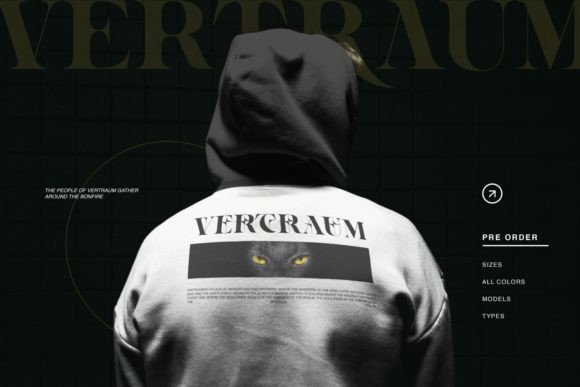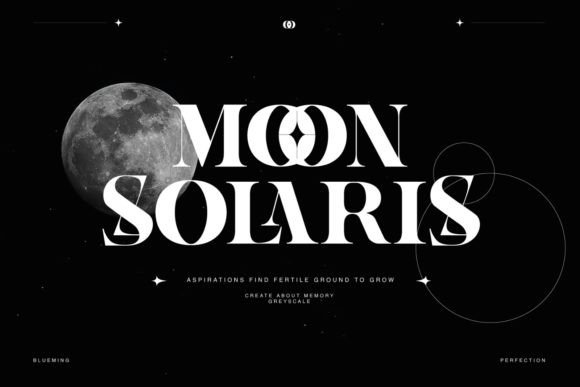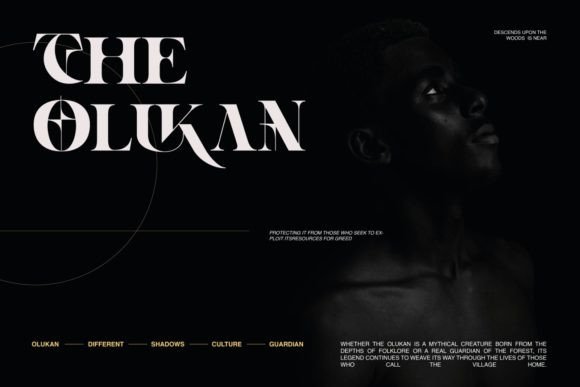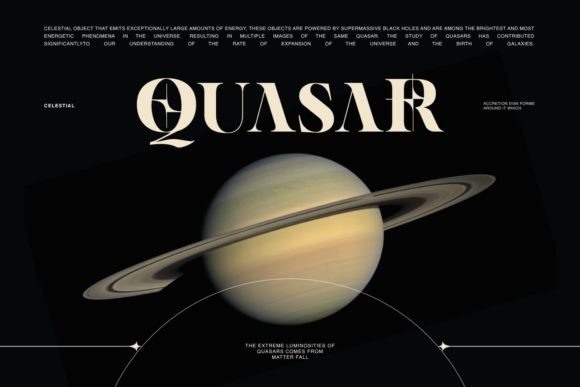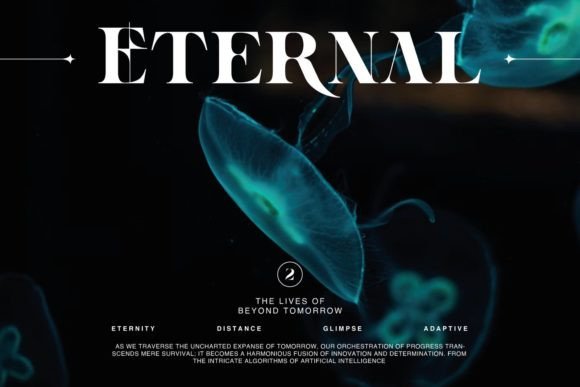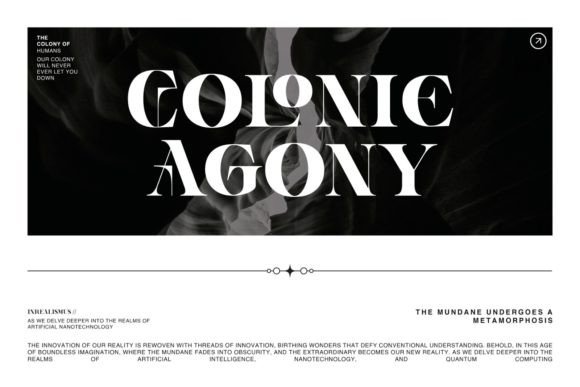
Introducing Helkon Font: A Revolutionary Fusion of Elegance and Cyber-Inspired Design
In the world of typography, fonts play a crucial role in defining the aesthetic and tone of any design project. With the ever-evolving landscape of digital and print media, the demand for unique and versatile fonts has never been higher. It is with great excitement that we introduce Helkon Font, a groundbreaking typeface that seamlessly blends the sophistication of classic elegance with the cutting-edge appeal of cyber-inspired design.
The Genesis of Helkon Font
Helkon Font is the result of meticulous craftsmanship, aimed at creating a typeface that not only meets but exceeds the expectations of modern designers and crafters. Its design is rooted in the fusion of two seemingly disparate elements: the sleek, minimalist aesthetic of cybernetic landscapes and the timeless elegance of traditional typography. This harmonious blend gives Helkon Font its unique character, making it an invaluable asset for projects that demand a touch of sophistication and modernity.
At the heart of Helkon Font lies its distinctive design, which marries sharp edges with fluid curves. This combination captures the essence of both digital precision and refined elegance, making it versatile enough to be used across a wide range of applications. From digital interfaces to print materials, Helkon Font brings a level of sophistication that elevates any project.
Sleek Lines and Minimalist Aesthetic
The cyber-inspired aspect of Helkon Font is evident in its sleek lines and minimalist aesthetic. These characteristics are reminiscent of the clean and efficient design often found in digital and technological interfaces. This aspect of the font ensures that it remains highly legible, even at smaller sizes, making it perfect for use in digital media, such as websites, mobile apps, and digital advertising.
Timeless Elegance
On the other hand, Helkon Font also embodies the timeless grace of classic typography. The fluid curves and subtle nuances in its design echo the elegance and sophistication of traditional typefaces. This blend ensures that Helkon Font can also be used in more traditional applications, such as luxury branding, high-end fashion magazines, and elegant stationery.
Applications of Helkon Font
The versatility of Helkon Font makes it suitable for a wide array of design projects. Here are a few examples of where this revolutionary typeface can make an impact:
- Digital Media: Enhance your website, mobile app, or digital campaign with a modern and sleek font that captures the attention of your audience.
- Luxury Branding: Elevate your brand with a sophisticated and elegant typeface that communicates luxury and refinement.
- Fashion and Beauty: Use Helkon Font to add a touch of glamour and style to your fashion magazine, beauty blog, or advertising campaign.
- Print Materials: From elegant stationery to high-end business cards, Helkon Font brings a level of sophistication to any printed material.
Helkon Font represents a significant leap forward in typography, offering designers and crafters a unique tool that combines the best of both worlds: the modernity of cyber-inspired design and the elegance of classic typography. Its versatility, legibility, and aesthetic appeal make it an excellent choice for a wide range of projects. Whether you are working on a digital interface, luxury branding, or a print material, Helkon Font is poised to elevate your design to new heights of sophistication and modernity.
Experience the future of typography today with Helkon Font. Discover how this revolutionary typeface can transform your design projects and leave a lasting impression on your audience.